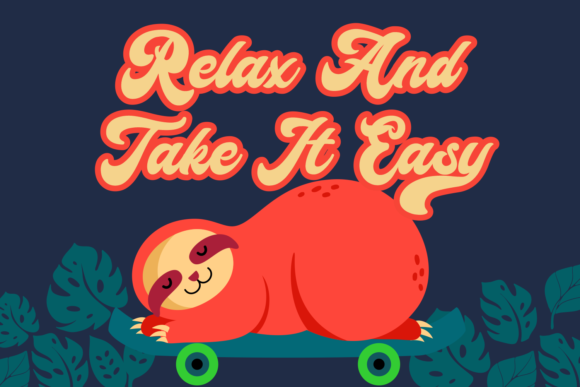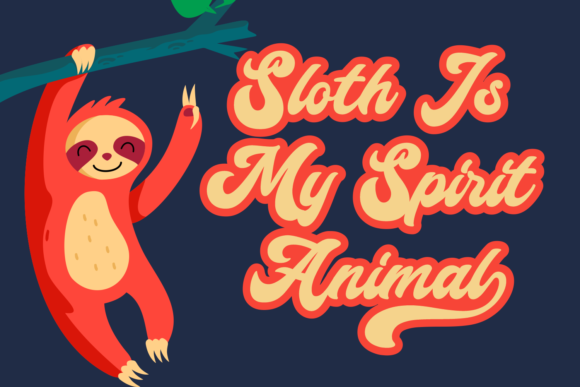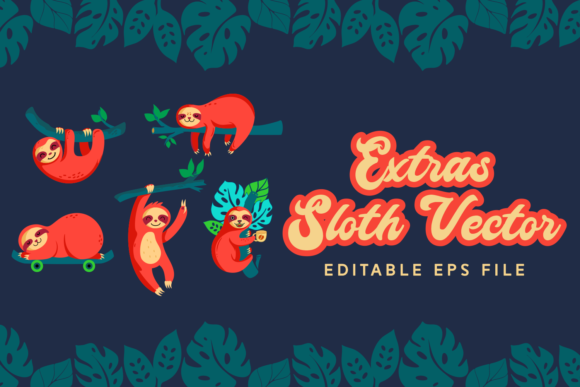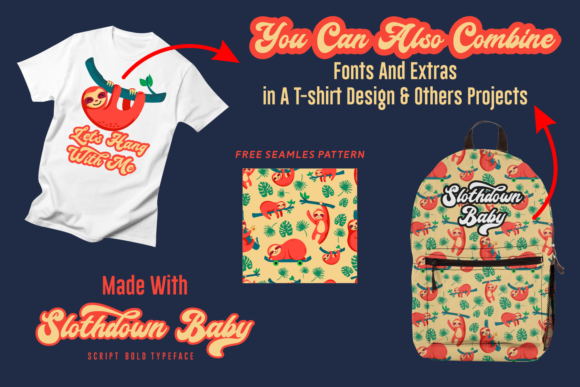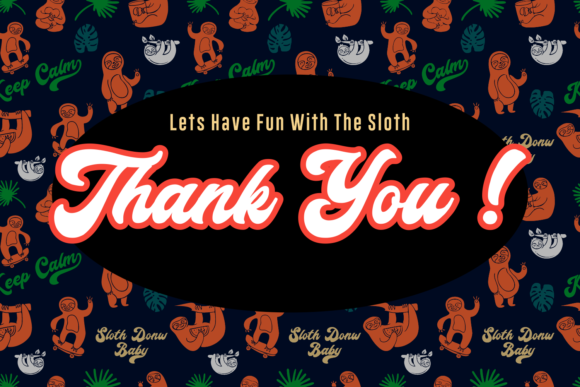
HomeScript FontsSlothdown Baby Font Script Fonts Slothdown Baby Font FacebookXPinterestWhatsApp Slothdown Baby Font Poster 2 Slothdown Baby Font Poster 3 Slothdown Baby Font Poster 4 Slothdown Baby Font Poster 5 Slothdown Baby Font Poster 6 About Slothdown Baby Font Take it easy! Inspired by sloths, Slothdown Baby is an adorable and friendly script for the ages. DOWNLOAD ON CREATIVE FABRICAThis font is sold and delivered by Creative Fabrica. Font Canyon may earn a commission if you buy through this link. People also explored Animal Kingdom Font Karestaqina Font Graceful Family Font Zeplyat Font Inspire Me Font Lovebird Font Coffee Font Uni North Cara Bellia Script Font 297 0 TagsSlothdown Baby Font Previous articleHelleny FontNext articleChildisko Font LEAVE A REPLY Cancel reply Comment: Please enter your comment! Name:* Please enter your name here Email:* You have entered an incorrect email address! Please enter your email address here Website: Save my name, email, and website in this browser for the next time I comment. Personal Use Free Barbatrick Personal Use Free Read more about this font Cherry Ai Personal Use Free Read more about this font Hello Holiday Personal Use Free Read more about this font Drip October Font Personal Use Free Read more about this font BLOG Free Fonts Risk: Why Free Fonts Can Be Dangerous for Designers Free Fonts Risk: Why Free Fonts Can Be Dangerous for Designers Using free fonts is a common practice in web and graphic design. However, the... Using Fonts in Digital Marketing: Tips to Strengthen Your Brand Identity Exploring Font Trends To increase your work productivity, choose the most readable fonts.